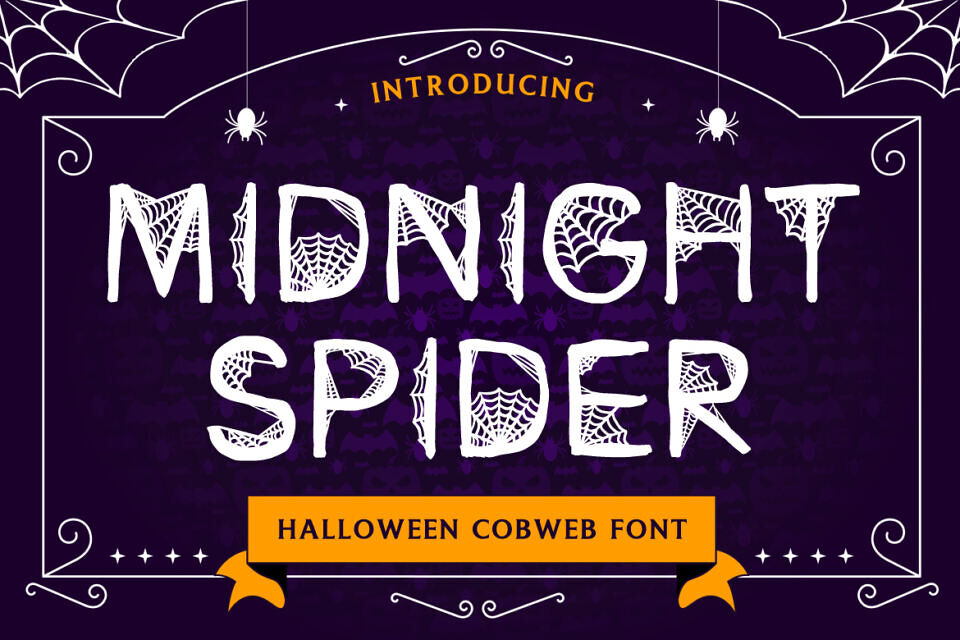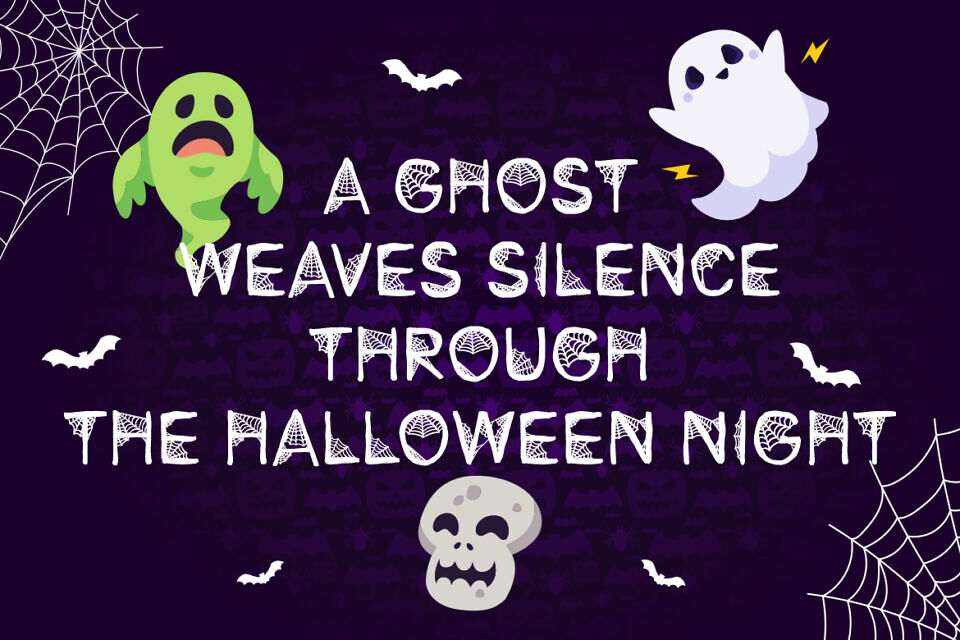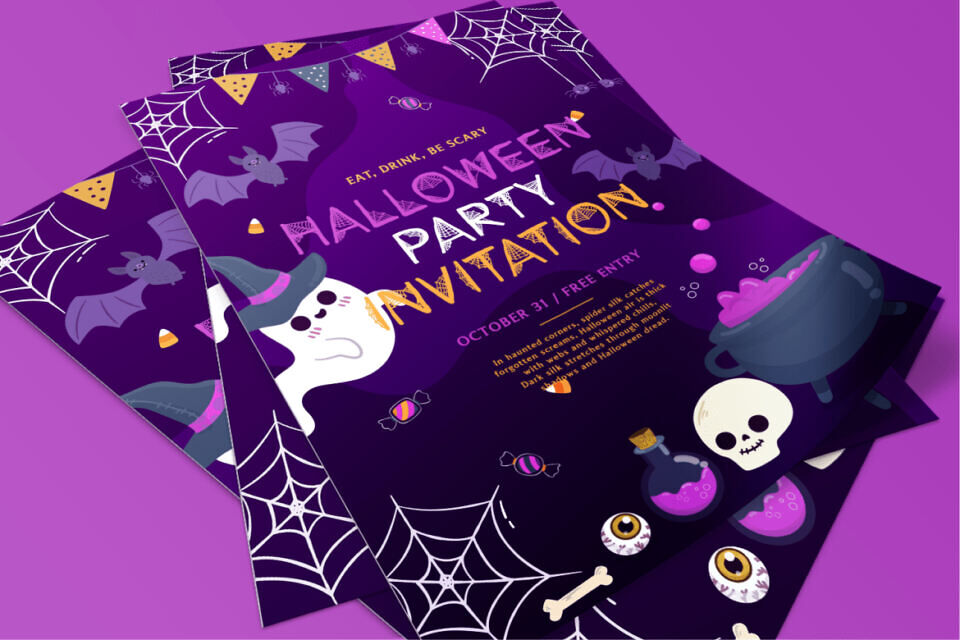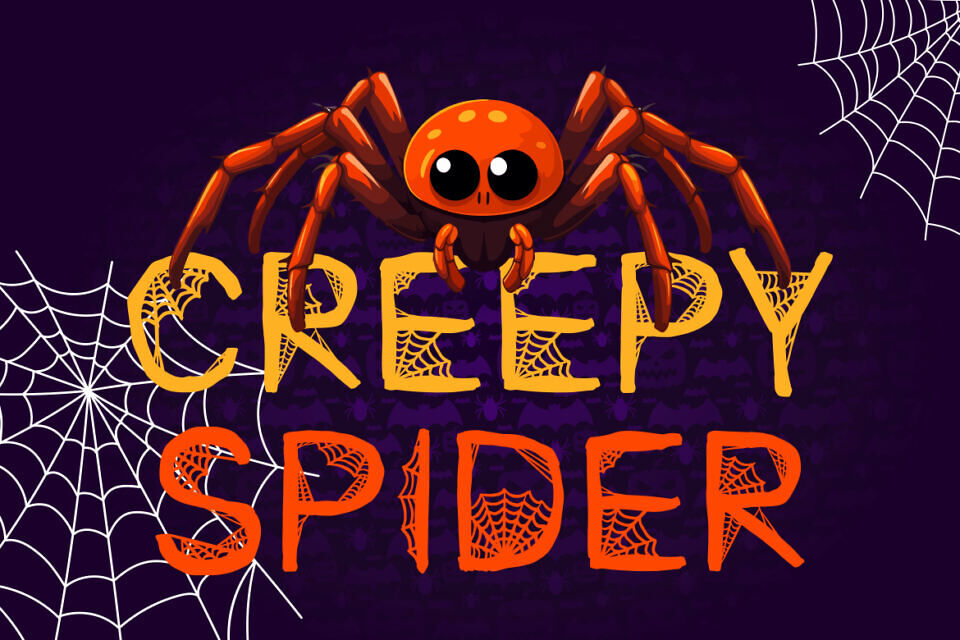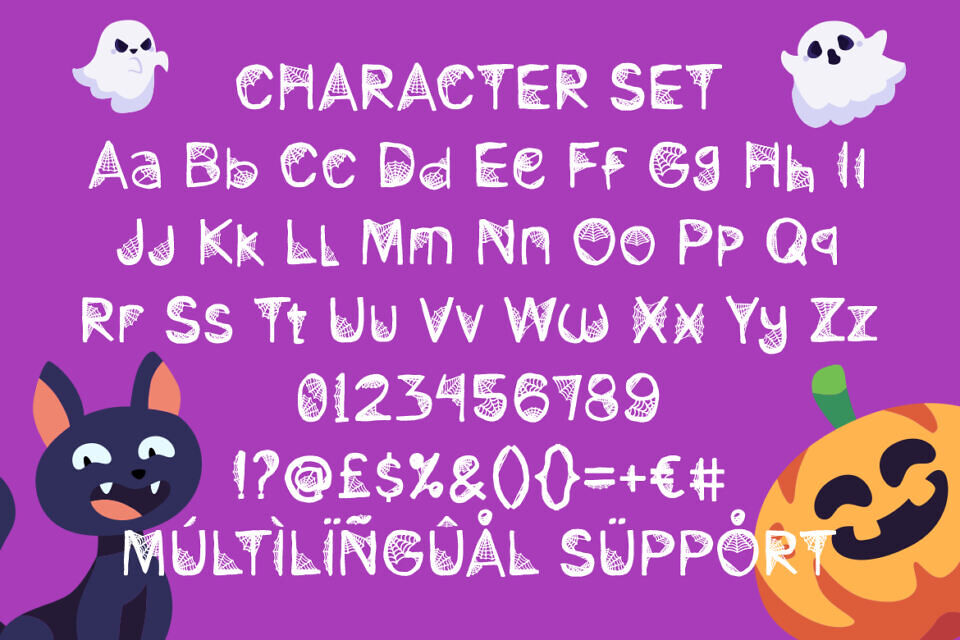
Midnight Spider Font
Step into the eerie charm of Midnight Spider, a spooky typeface designed to spin Halloween magic into your creations. Each letter mimics the intricate threads of a spider’s web, blending creepy elegance with playful horror.
Its whimsical curves and fine details create a mysterious, yet inviting atmosphere—perfect for Halloween logos, invitations, posters, packaging, and book covers. Versatile and eye-catching, it also shines in movie titles, themed stickers, and quirky greeting cards.
With full multilingual support and a complete character set, Midnight Spider delivers both readability and personality, making it the ideal font for all your festive, fright-filled, and fun design projects.